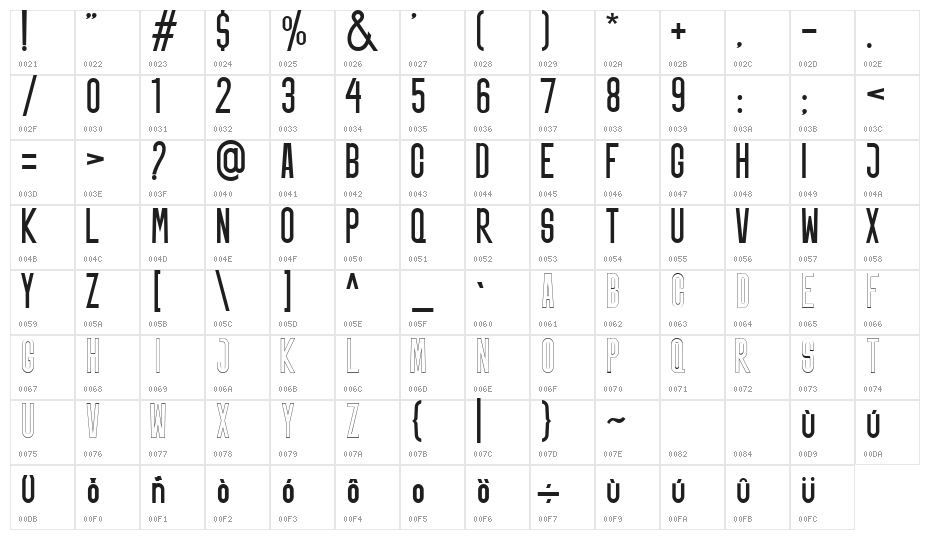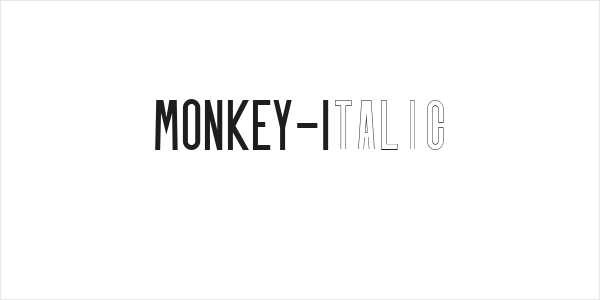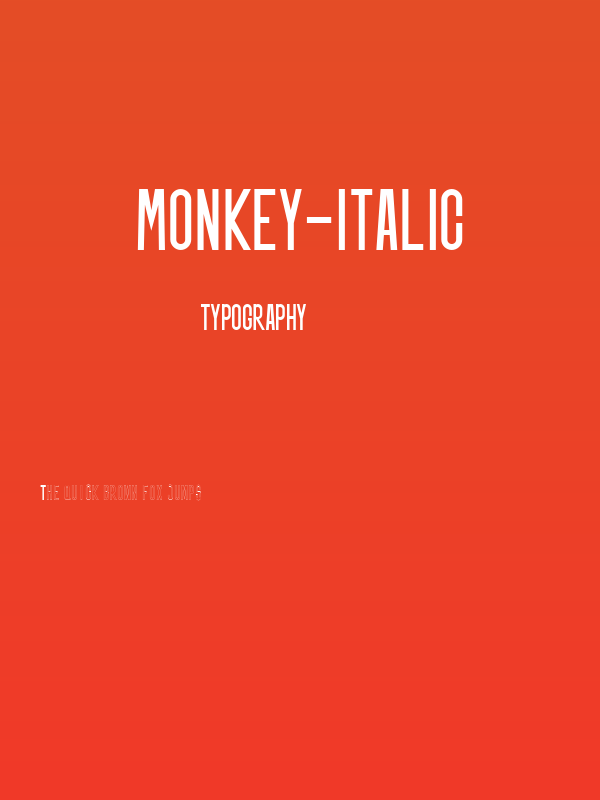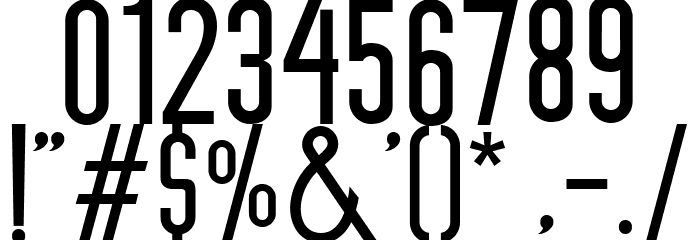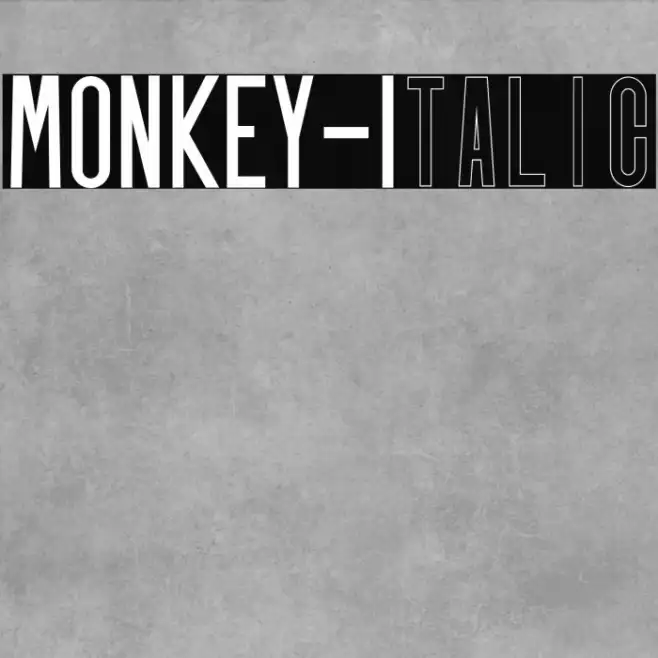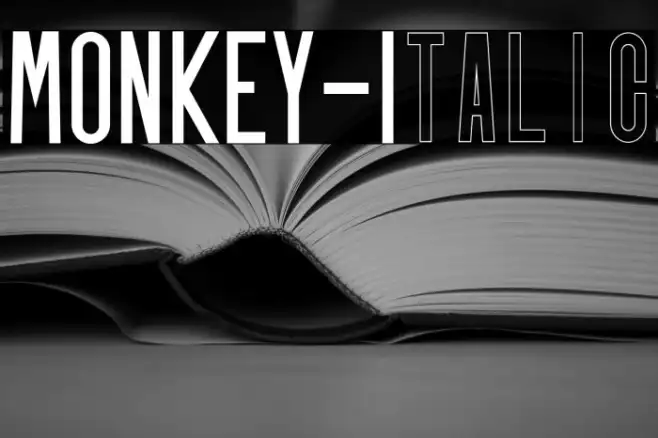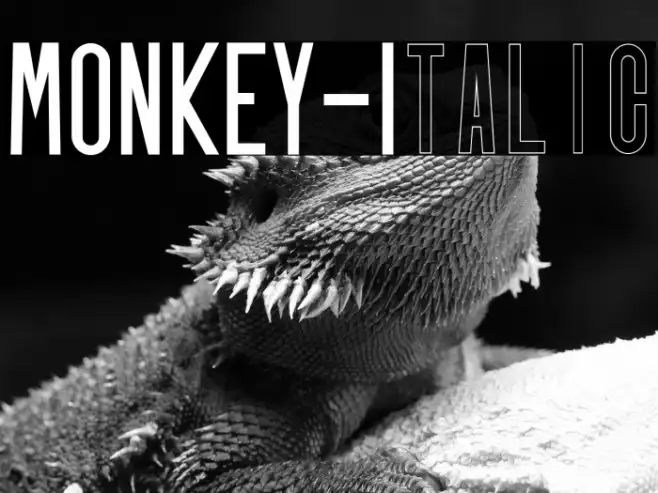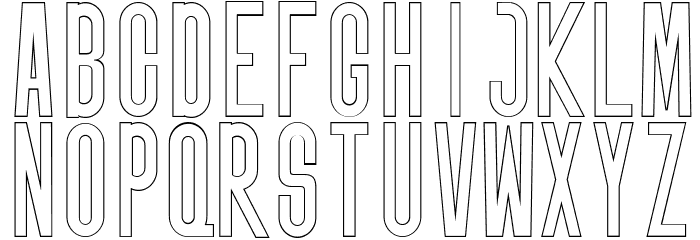
MONKEY-Italic Font
MONKEY-Italic Description
This font features a bold and modern design with a strong geometric structure. The uppercase letters are tall and narrow, giving a sense of height and elegance. The lowercase letters maintain a consistent style, complementing the uppercase with their sleek and streamlined appearance. Numbers are designed to match the overall aesthetic, ensuring a cohesive look. Special characters are included, maintaining the font's bold and modern feel. The font's clean lines and uniform stroke width make it ideal for impactful and attention-grabbing designs.
| Proposed Projects | Ideal for branding, posters, headlines, and any project requiring a strong visual impact. |